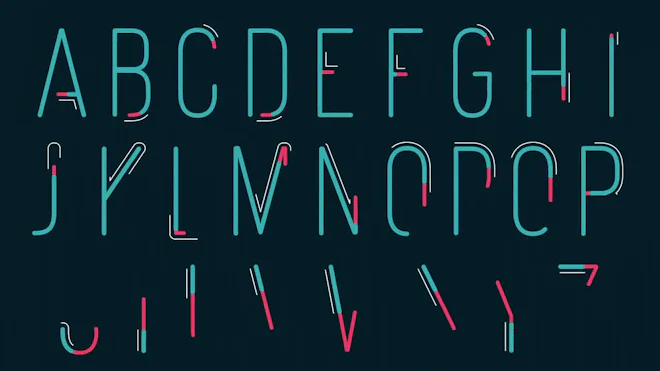
This After Effects template features stylish animated thin font. It contains the entire English alphabet and 10 numbers. A video tutorial is included. Available in 4K and HD.